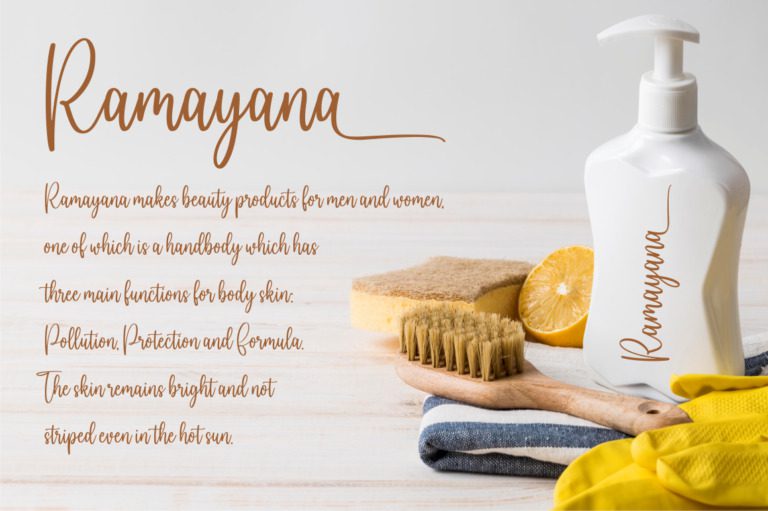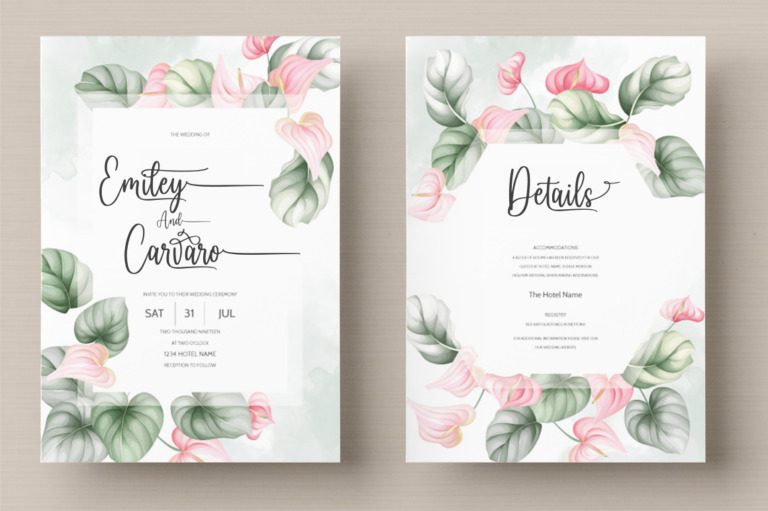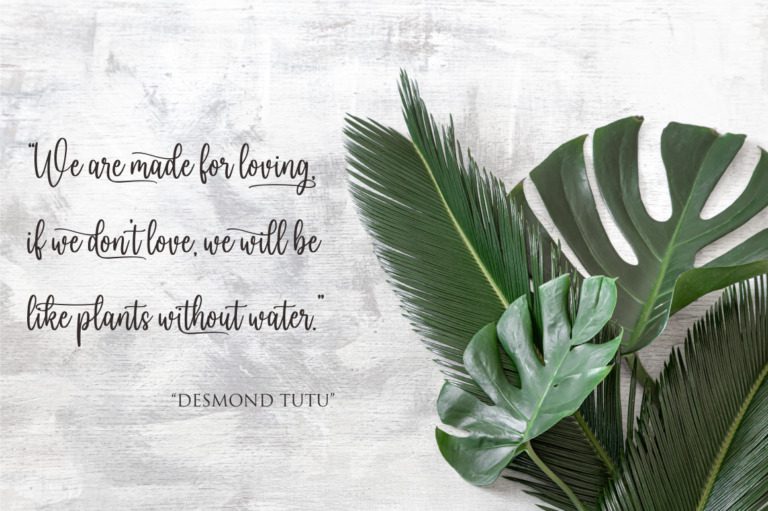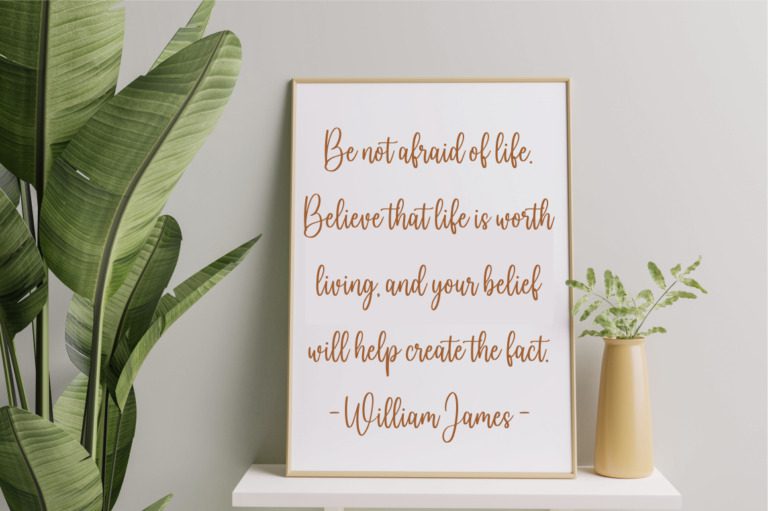
Monkey Font
Monkey is a playful and mischievous font that captures the essence of the jungle. Its rounded letters and playful curves evoke the fun and energy of a monkey swinging through the trees. Perfect for children’s books, party invitations, and any design that needs a touch of fun and whimsy, Monkey is a versatile font that will bring a smile to your face.